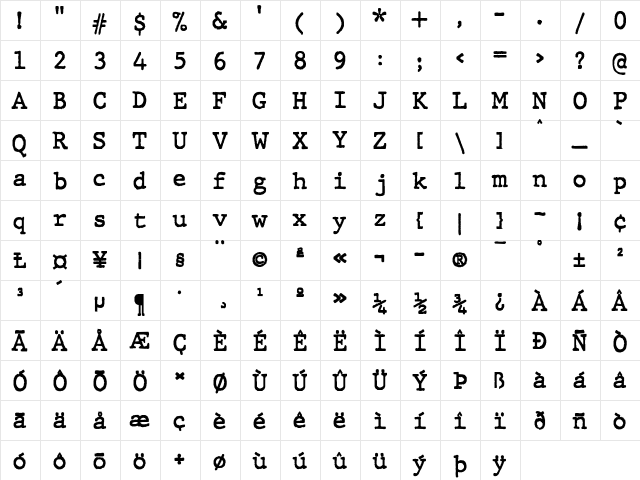
JMH Typewriter Bold
Design Context for JMH Typewriter Typeface
JMH Typewriter uses fixed-width spacing throughout, giving it the structured, systematic character associated with coding environments and technical documentation. Its bold stroke weight gives it real presence on the page.
A natural fit for code editors, technical documentation, developer-focused branding, and terminal-inspired UI.
Pro Tip: Pair JMH Typewriter with a proportional sans for UI contexts where code-style labels and regular body copy need to coexist.